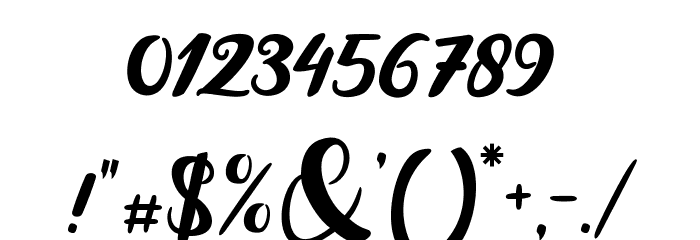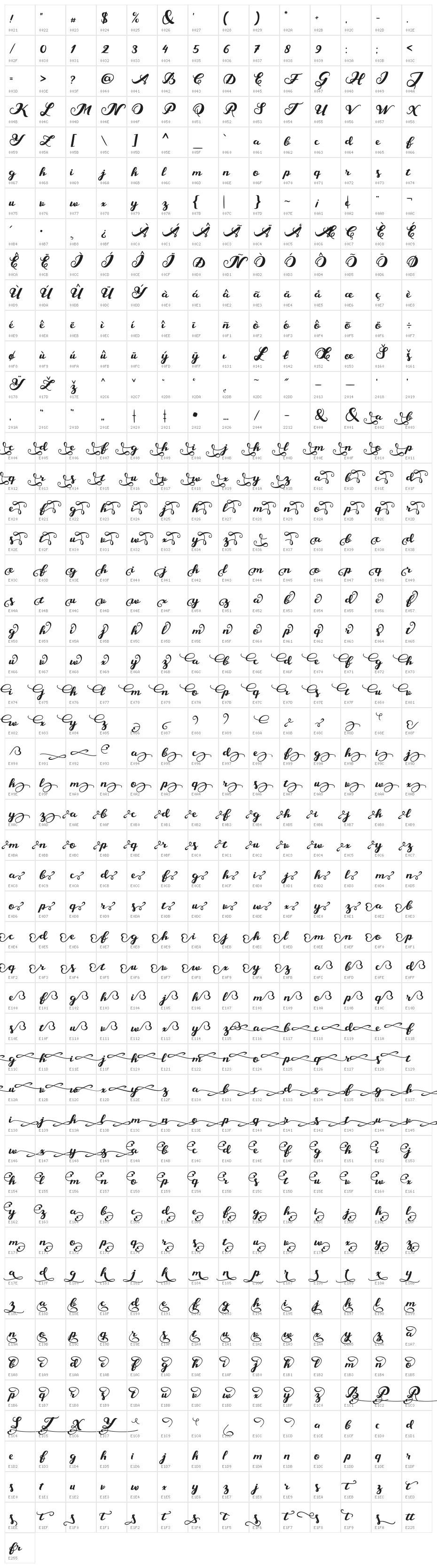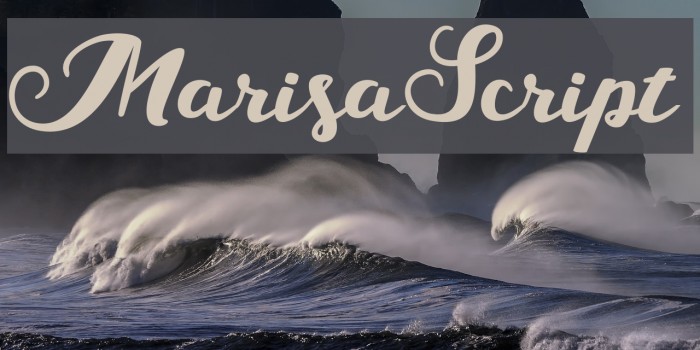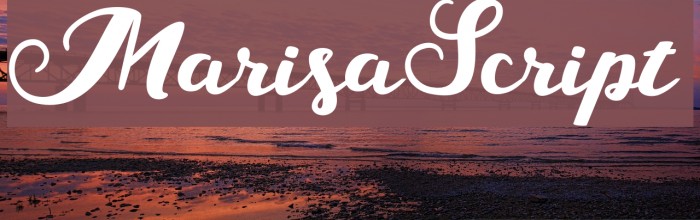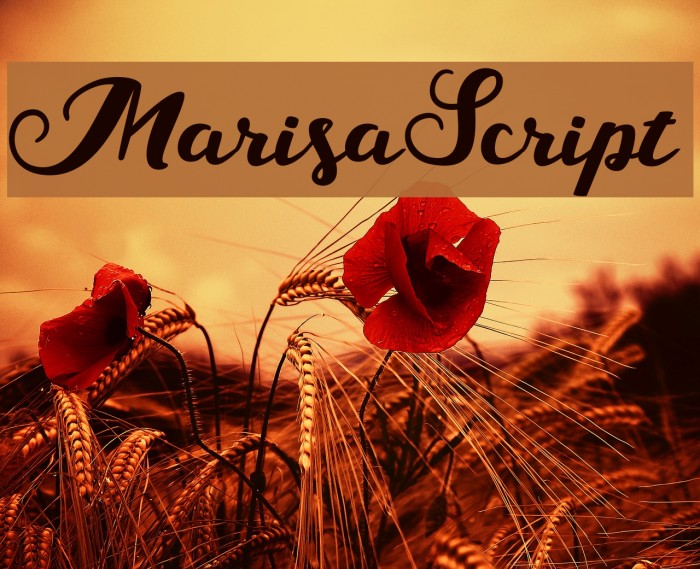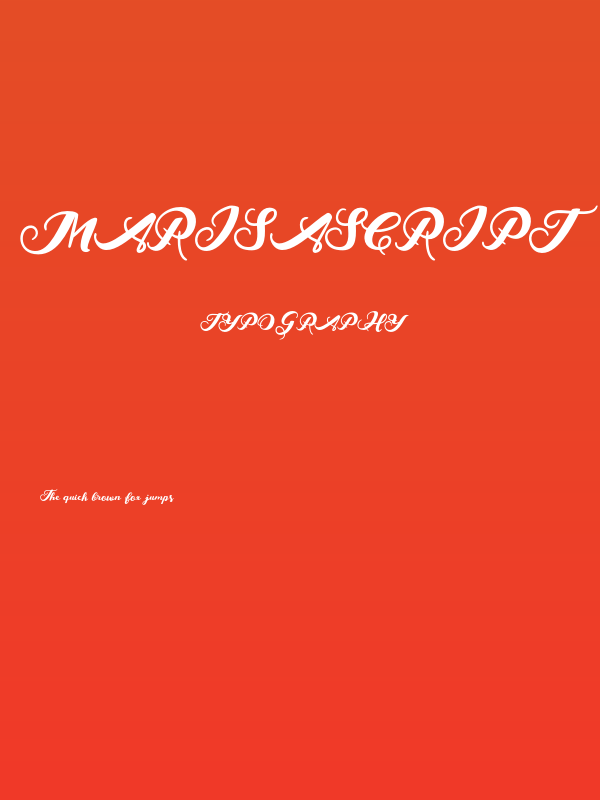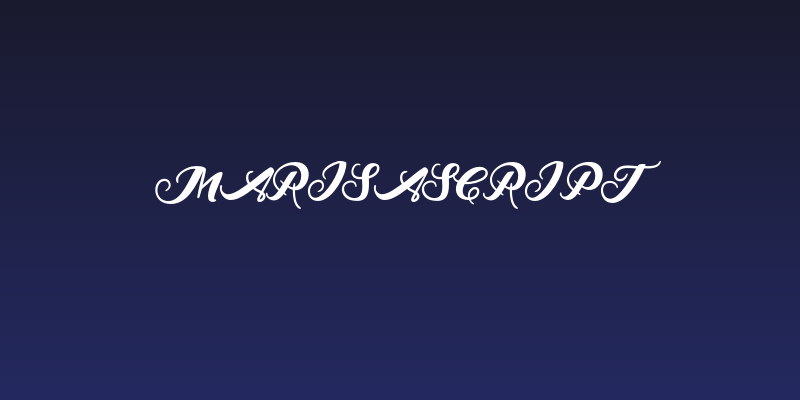
MarisaScript Font
MarisaScript Description
This elegant script font features flowing, cursive letterforms with a sophisticated and decorative flair. The uppercase letters are ornate, with sweeping curves and flourishes that give a sense of movement and grace. The lowercase letters maintain a consistent style, with smooth connections and a slightly more restrained design, making them highly readable. The numerals and special characters are crafted to match the overall aesthetic, ensuring a cohesive look across all text. This font exudes a sense of elegance and charm, perfect for projects that require a touch of sophistication.
| Use Case | Logos, Invitations, Decorative Text |
| Proposed Projects | Ideal for wedding invitations, elegant branding, greeting cards, and high-end product packaging. |